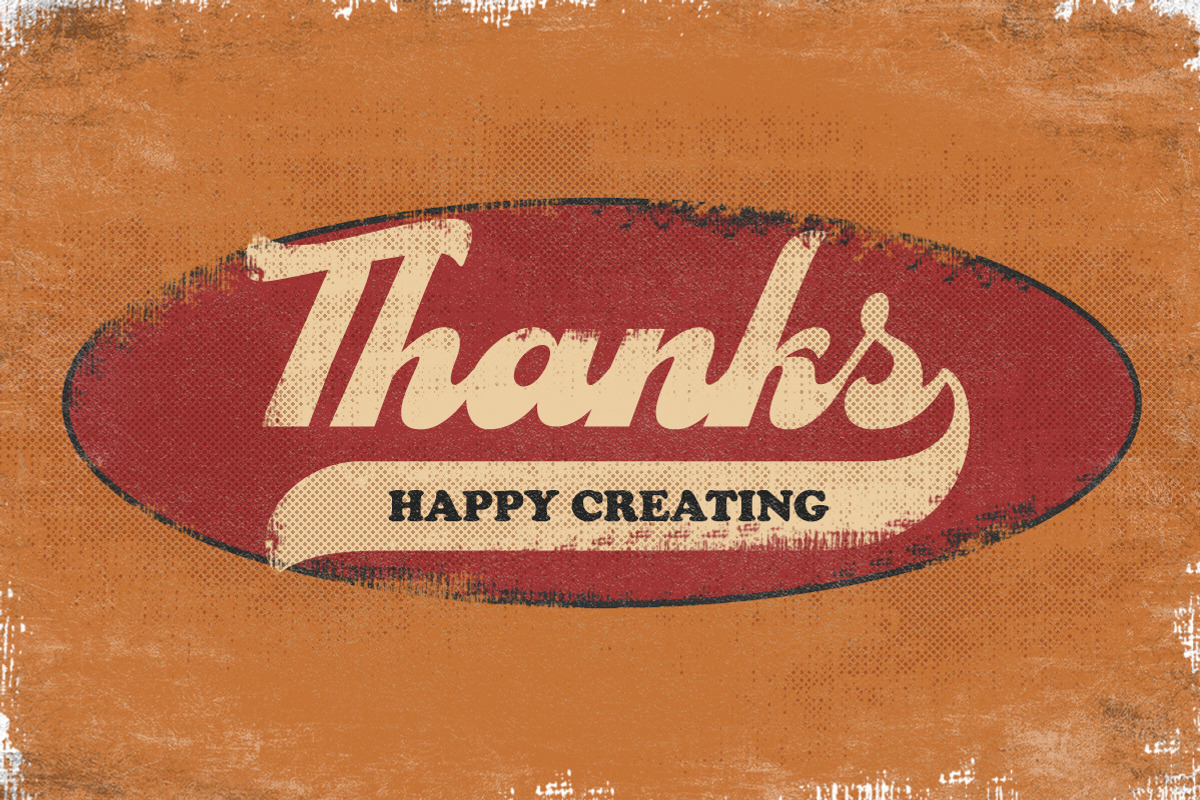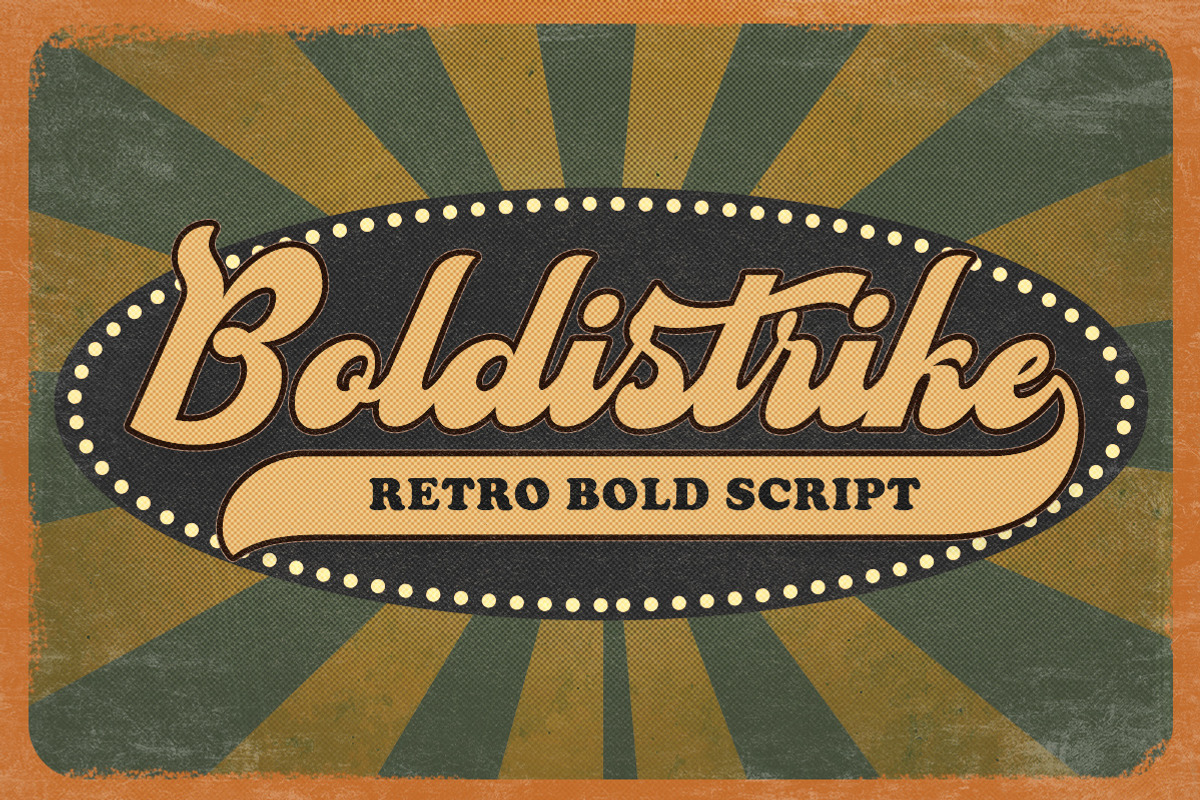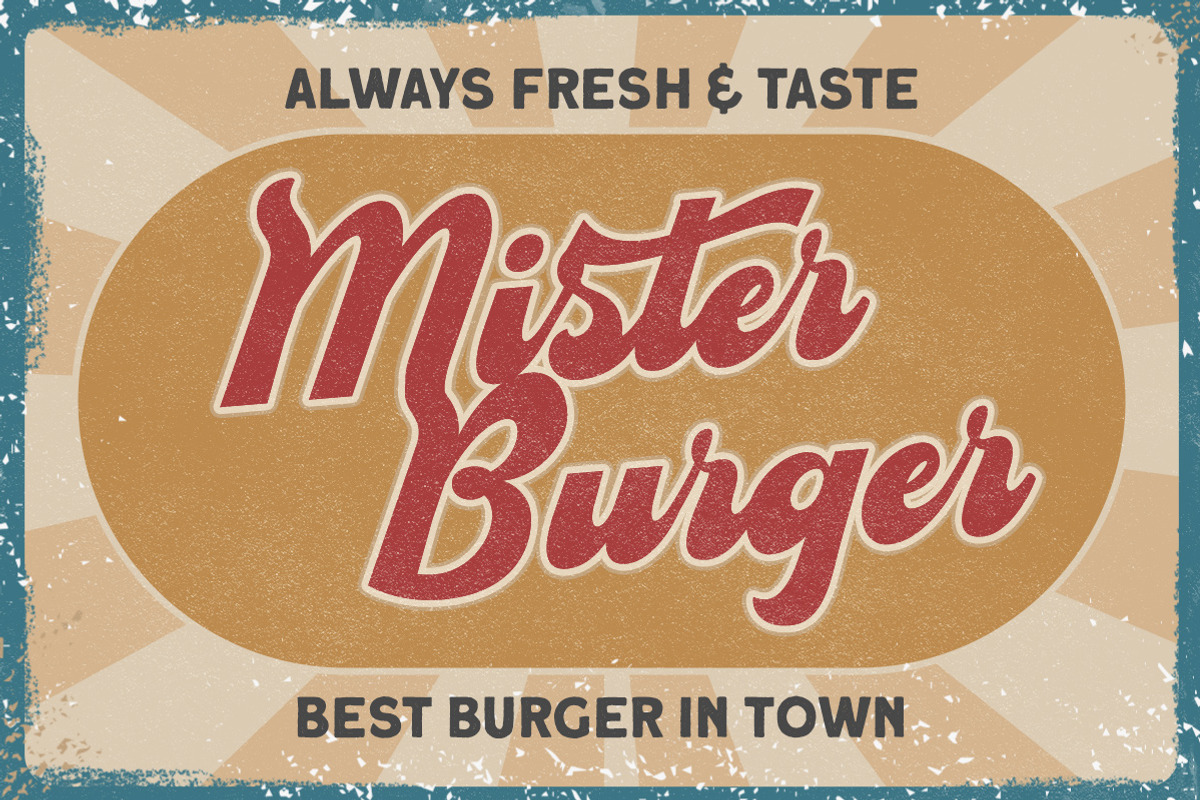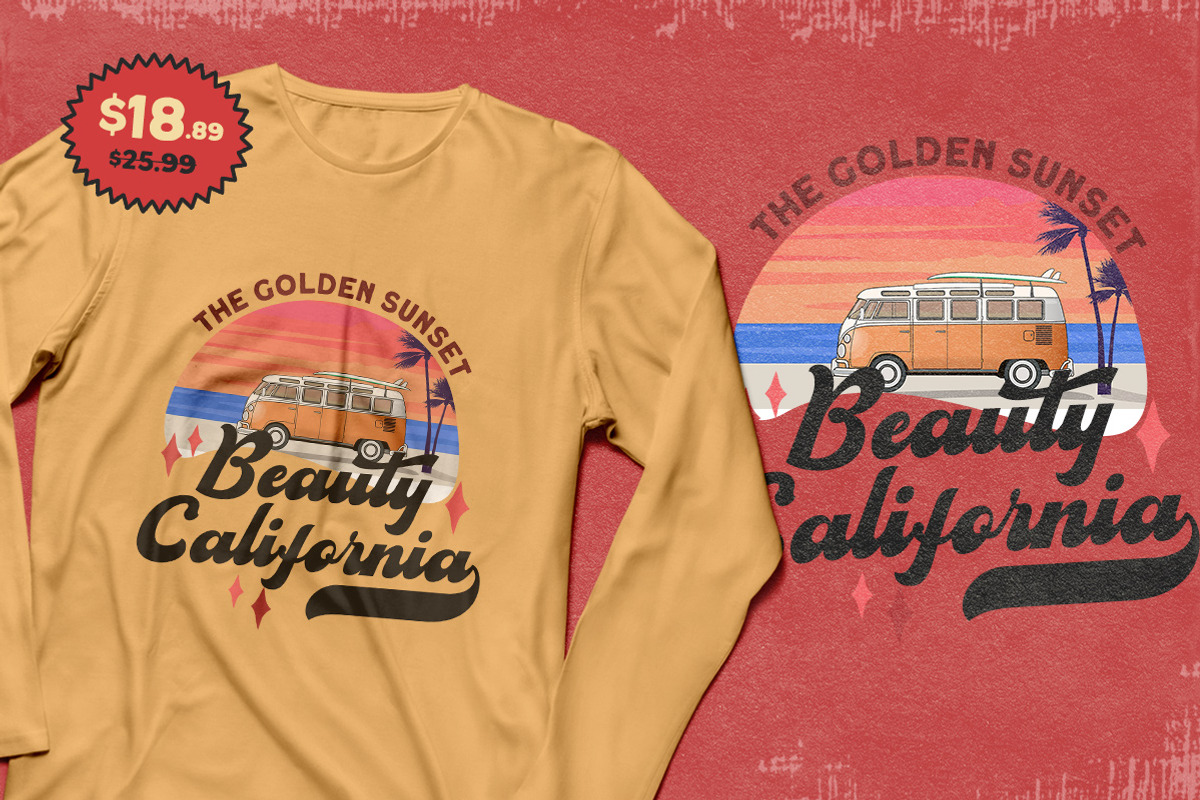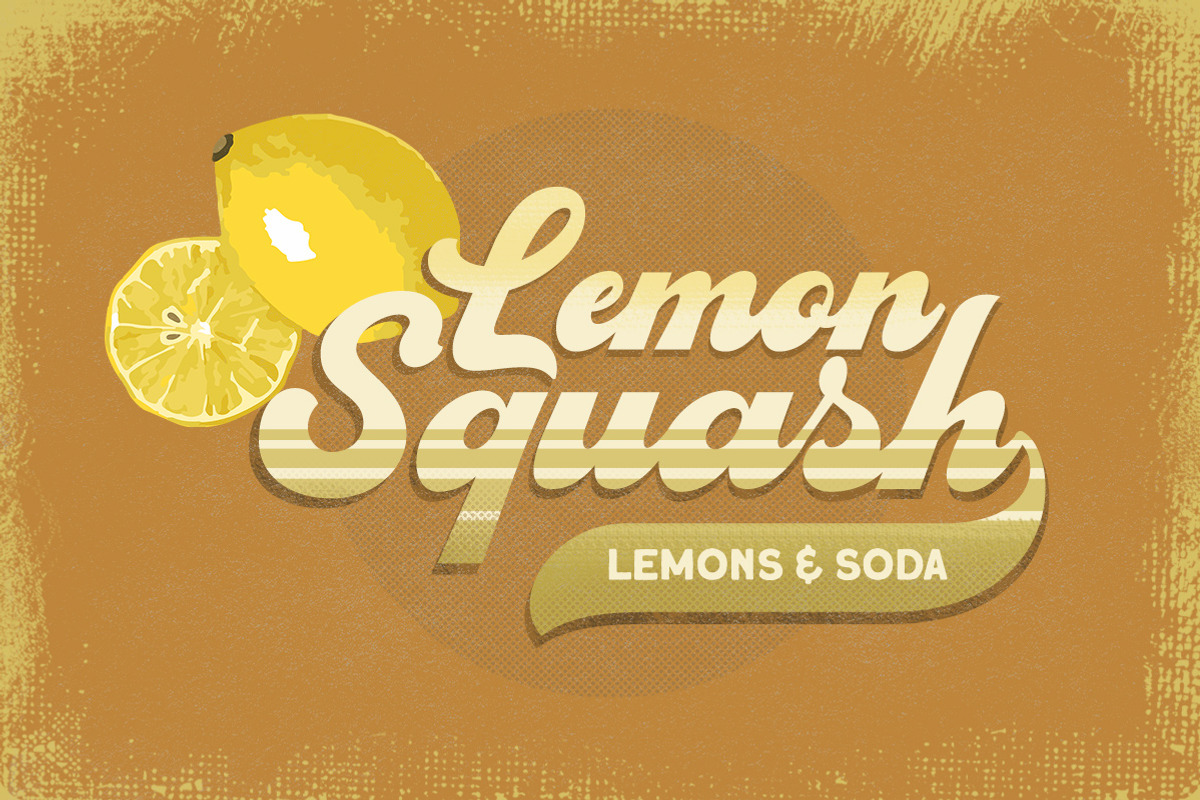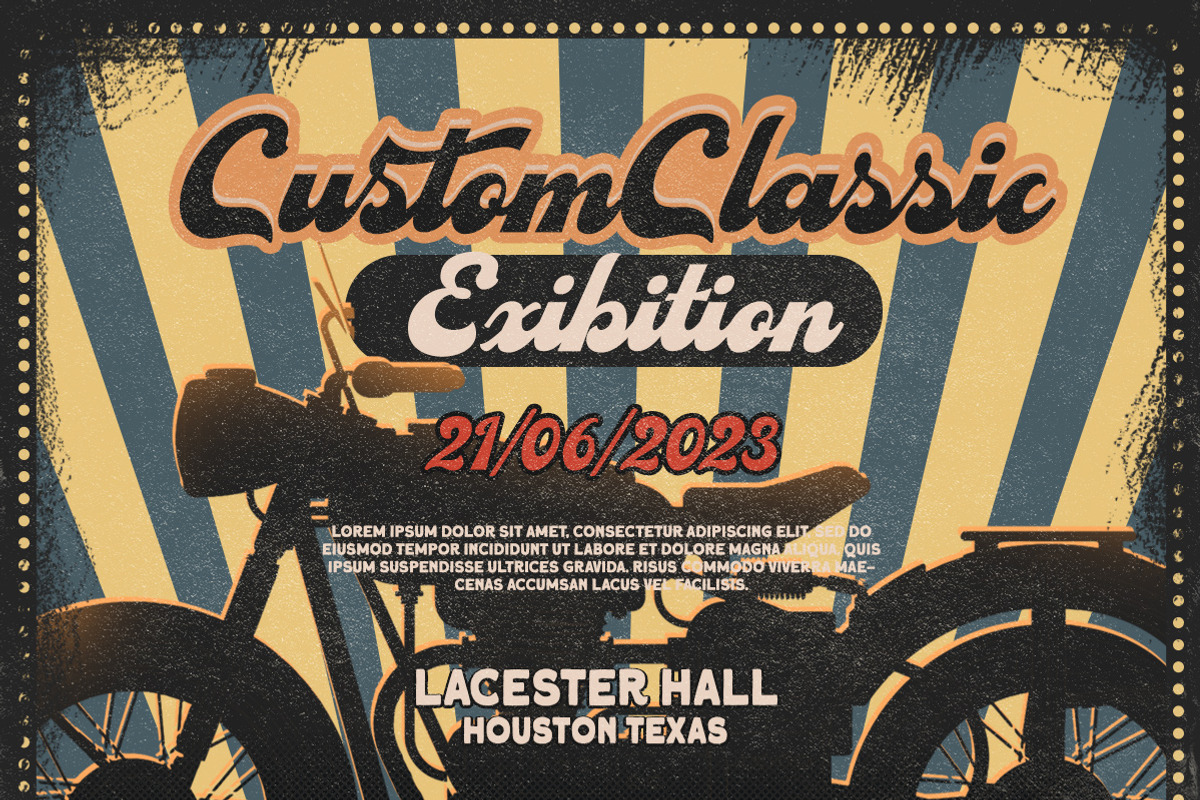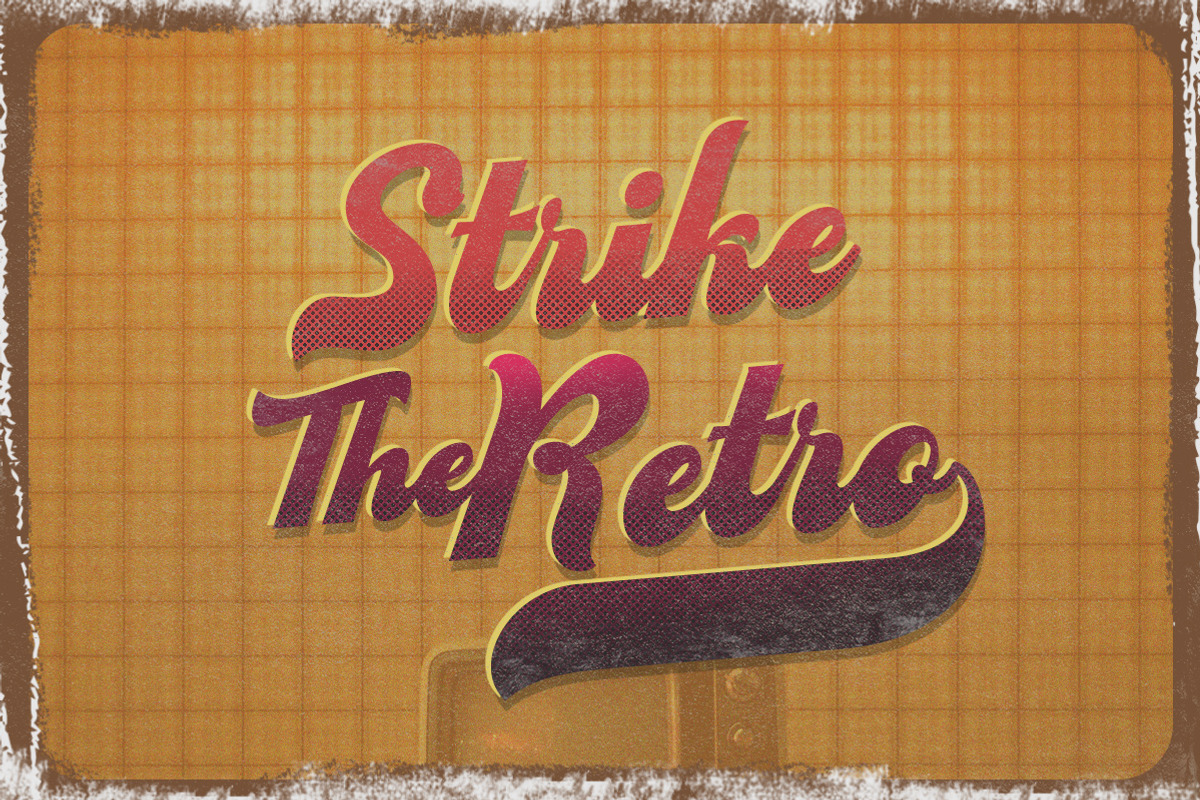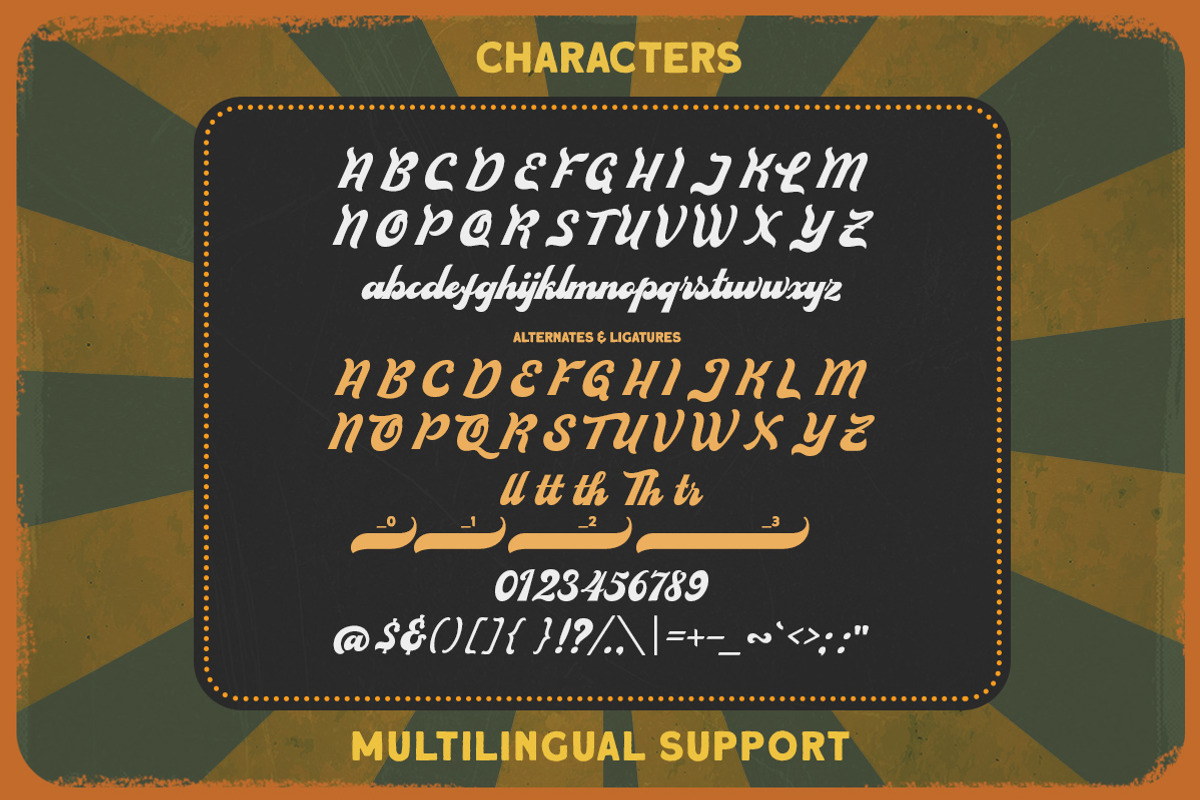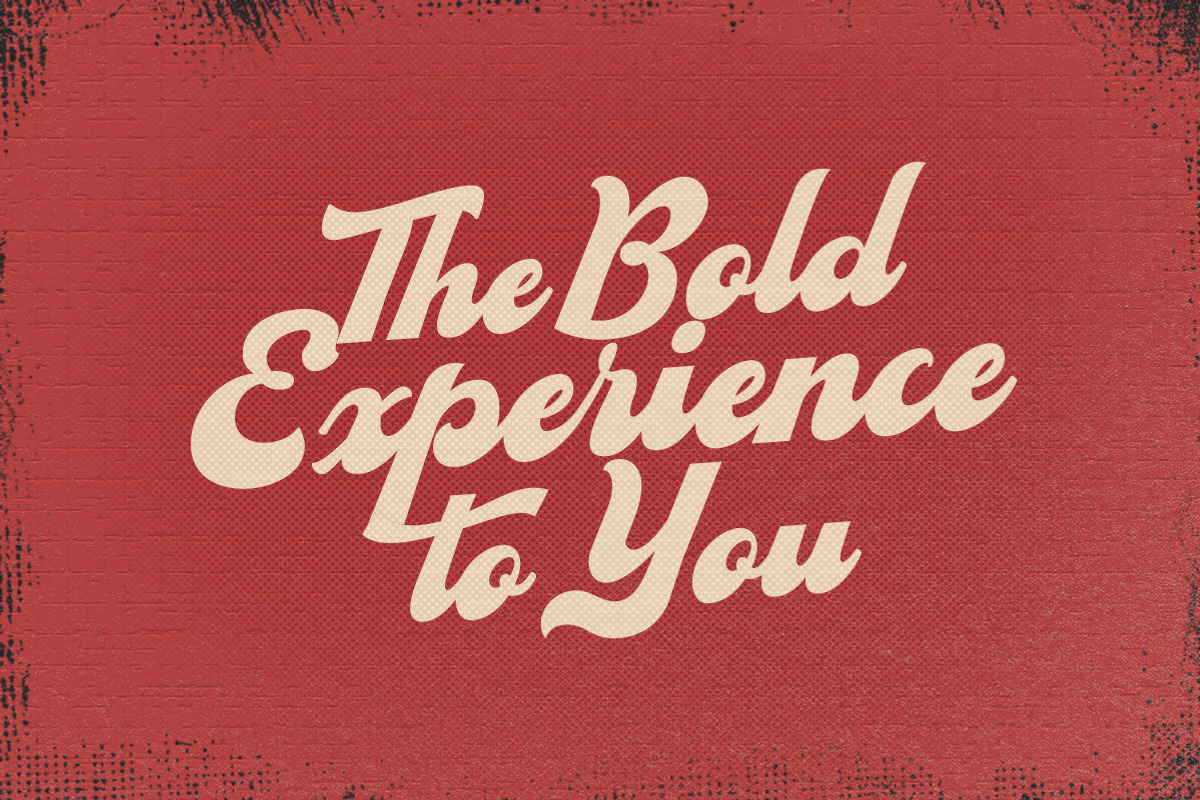
Boldstrike - Retro Bold Script
Boldstrike is a retro bold script which will bring you back to 60s feel. The bold letterform with swash makes this typeface looks standout to be used for your retro theme project. This font perfectly made to be applied especially in logo, and the other various formal forms such as invitations, labels, logos, magazines, books, greeting / wedding cards, packaging, fashion, make up, stationery, novels, labels or any type of advertising purpose.
- alternates
- swashes